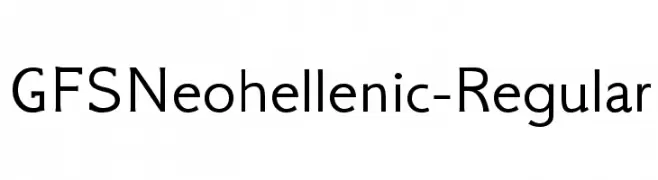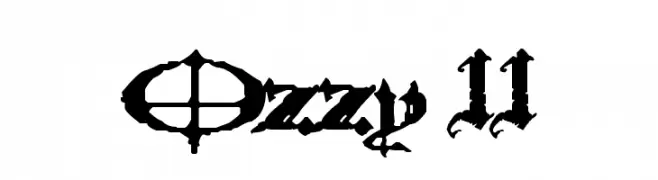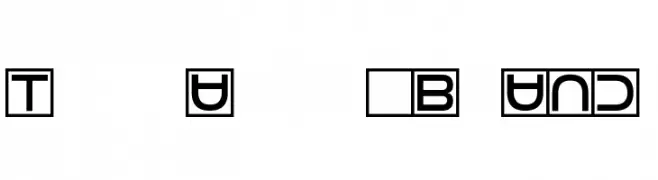
• GFSDidot-BoldItalic
An elegant, high-contrast serif font with italic styling.
• GFSDidot-Italic
An elegant serif font with a classic italic style and high contrast strokes.
• GFSNeohellenic-BoldItalic
A bold italic font with a modern and elegant style, perfect for impactful designs.
• GFSNeohellenic-Regular
A modern sans-serif typeface with geometric influences and balanced proportions.
• GFSNeohellenic-Bold
A bold, modern sans-serif font with clean lines and strong visual impact.
• GFSNeohellenic-Italic
A clean and elegant italic font with smooth curves and a modern aesthetic.
• Mucha
• Ozzy II
• KuzuMelt Light
A modern, geometric font with characters enclosed in rectangular frames, offering a bold and decorative style.
• Torturer Bound
A bold, geometric font with enclosed characters and a futuristic style.